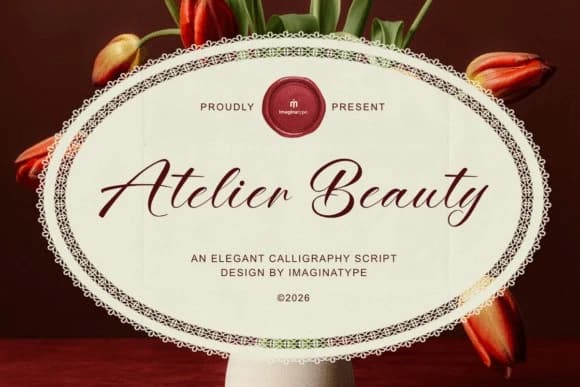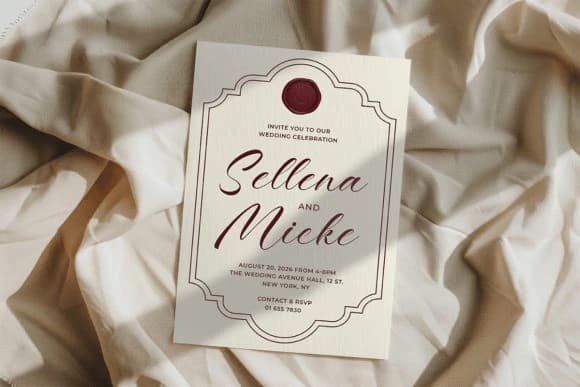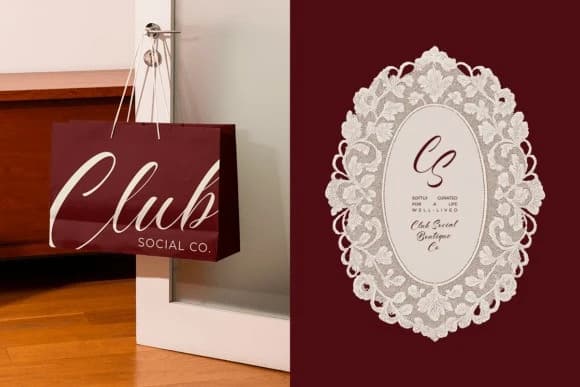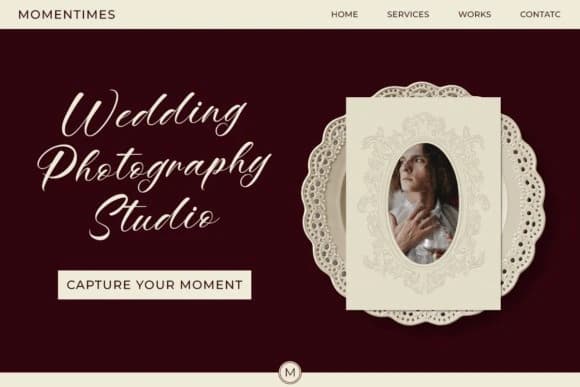
Atelier Beauty Font
Atelier Beauty Font, a refined calligraphy script typeface that effortlessly brings a touch of romance and luxury to your creative projects. This sophisticated script is characterized by its graceful, flowing strokes and high-contrast letterforms, lending it an authentic